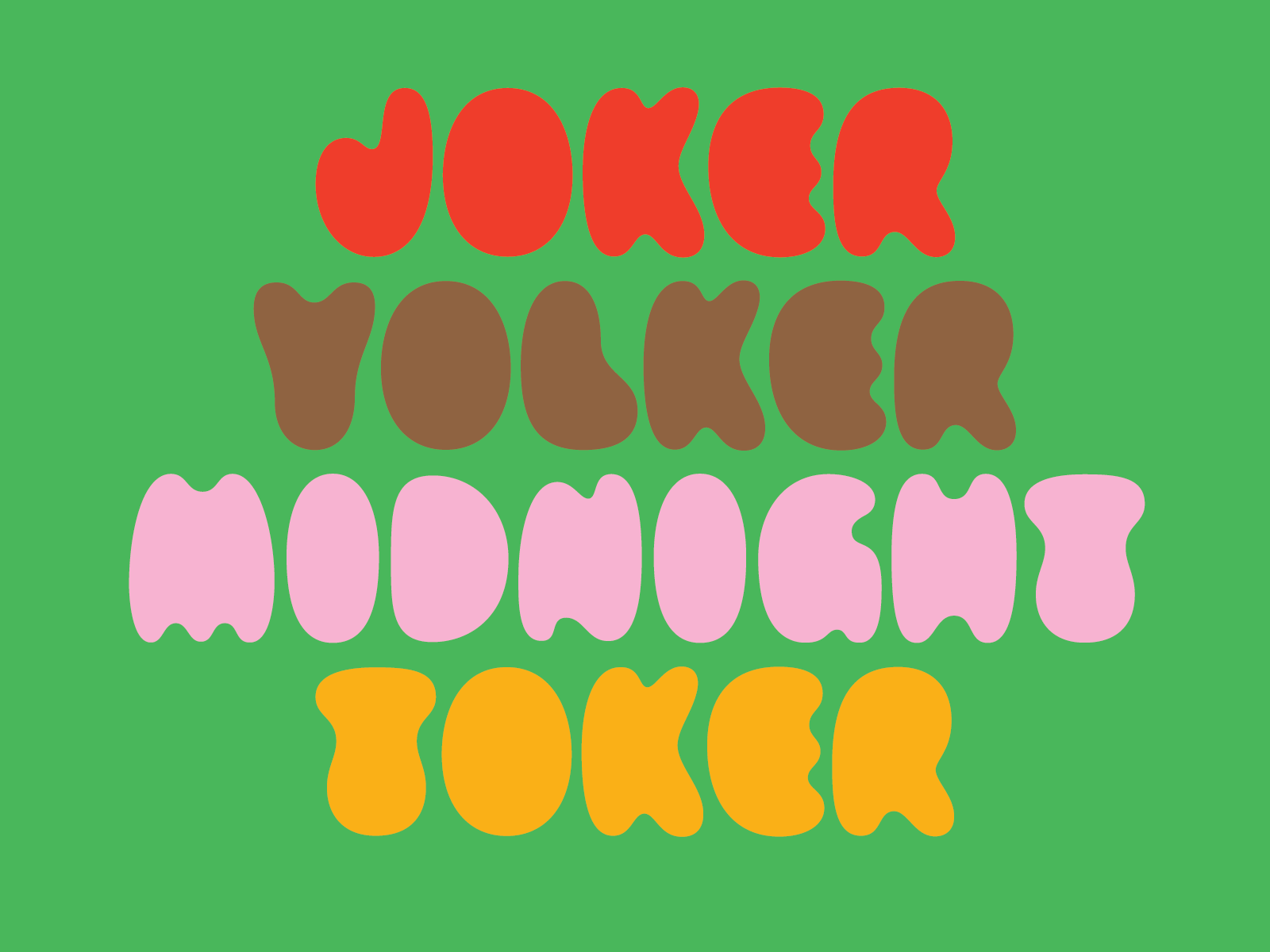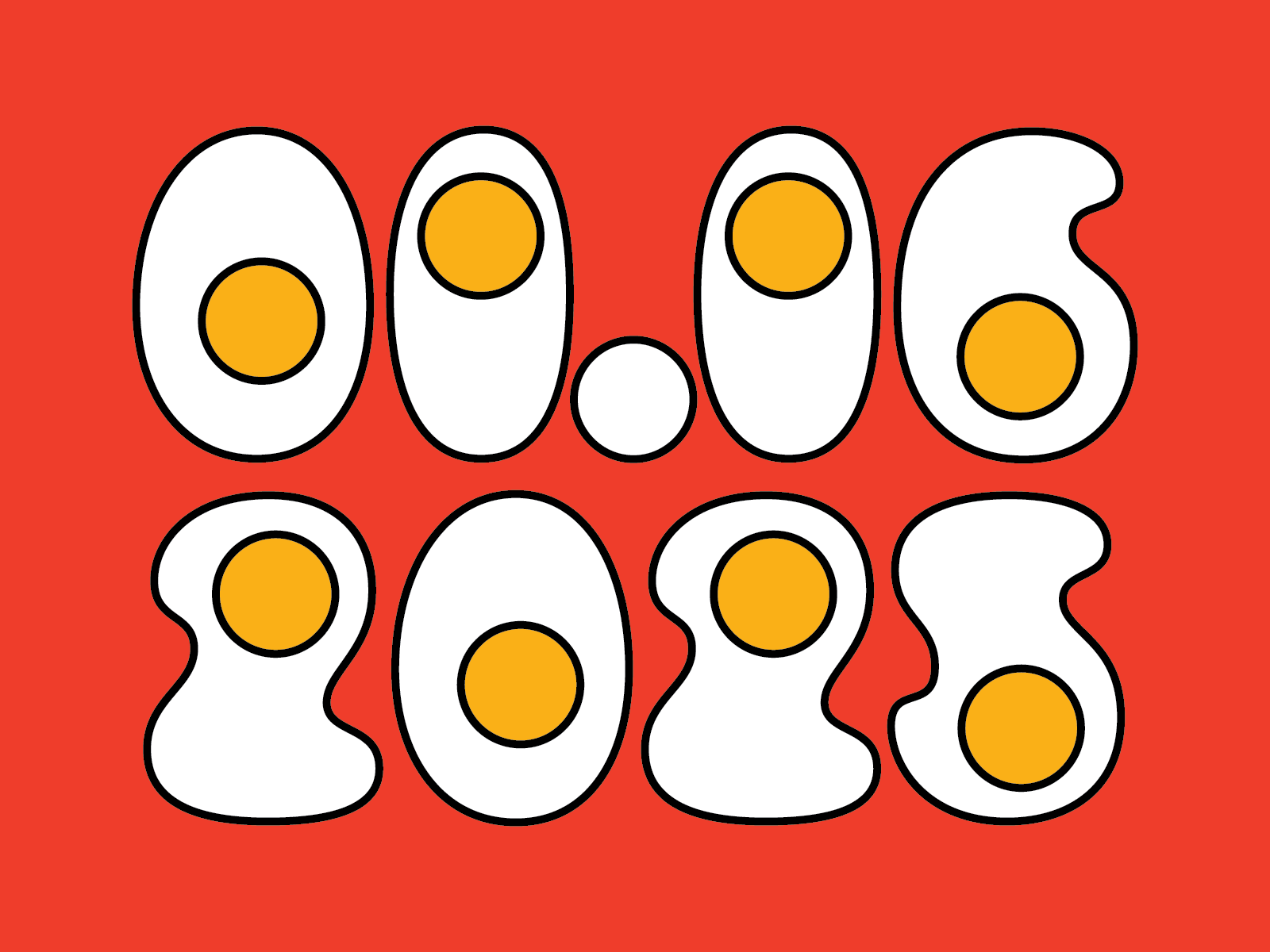
Well I have some news… I finally finished Yolker!! The design phase is complete and I will be polishing up the files and then I will… release it?! To be completely honest, I am both exhilarated and terrified at the thought. I don’t want to jinx it or spook myself but this might be the year that I start doing this for real!
I feel like I’ve been sitting on my hands for the last couple years — waiting for permission? Or maybe I simply wasn’t feeling ready? This fall, I had a student who came to an office hour and ended up giving me a pep talk about how I should be releasing the fonts that I use for a demos in class. I, of course, tried to give some excuses about them taking forever, doing this solo, blah blah blah. He saw right through me and said (with love), “that just sounds like excuses.”
Apparently, I really needed to be called out because ever since we had that chat, all I can think about is how I am possibly disappointing someone by my inaction. The fire under my ass has been lit. To prove it, I am going to make you a promise: at the end of this month, I will release Yolker and there is going to be a cute printed specimen to match! And then we will all collectively gasp at my abilities and how brave I was in releasing an egg font.
The Yolker type family will consist of 3 styles: Yolks, Yolkless, and an Outline style. I have designed a pretty robust character set for such a weird font. I used the Latin Plus character set from Underware. I am actually quite proud of how it turned out — despite legibility being a fine line here!
The punctuation and symbols were definitely holding me back. It was a challenge to anything with straight lines or necessary counters as it is against the rules of the typeface. I had to break some rules for things like the @, ©, and ® because the outer circle is pretty crucial for legibility. These symbols might not even see the light of day in a font like this but I take them as seriously as H and O!!
5 Things I’ve Been Into Lately
This Aquaphor stick my sister, Alyssa, gave me as part of our Favorite Things party! It’s been saving my poor chapped lips in these frigid midwest temps. Dealing with temperatures below 0°F (-18°C) should be illegal!!
Since last summer, I’ve been obsessed with Pikmin Bloom. It’s a walking game, sort of like Pokemon Go but with cute little Pikmin guys. It’s wholesome and makes my walks a little extra fun! Who could ask for more?
Lately, Alex and I have been addicted to frying eggs in chili crisp and eating them over rice with some soy sauce. Sometimes we even get a little crazy by adding mushrooms and green onions.